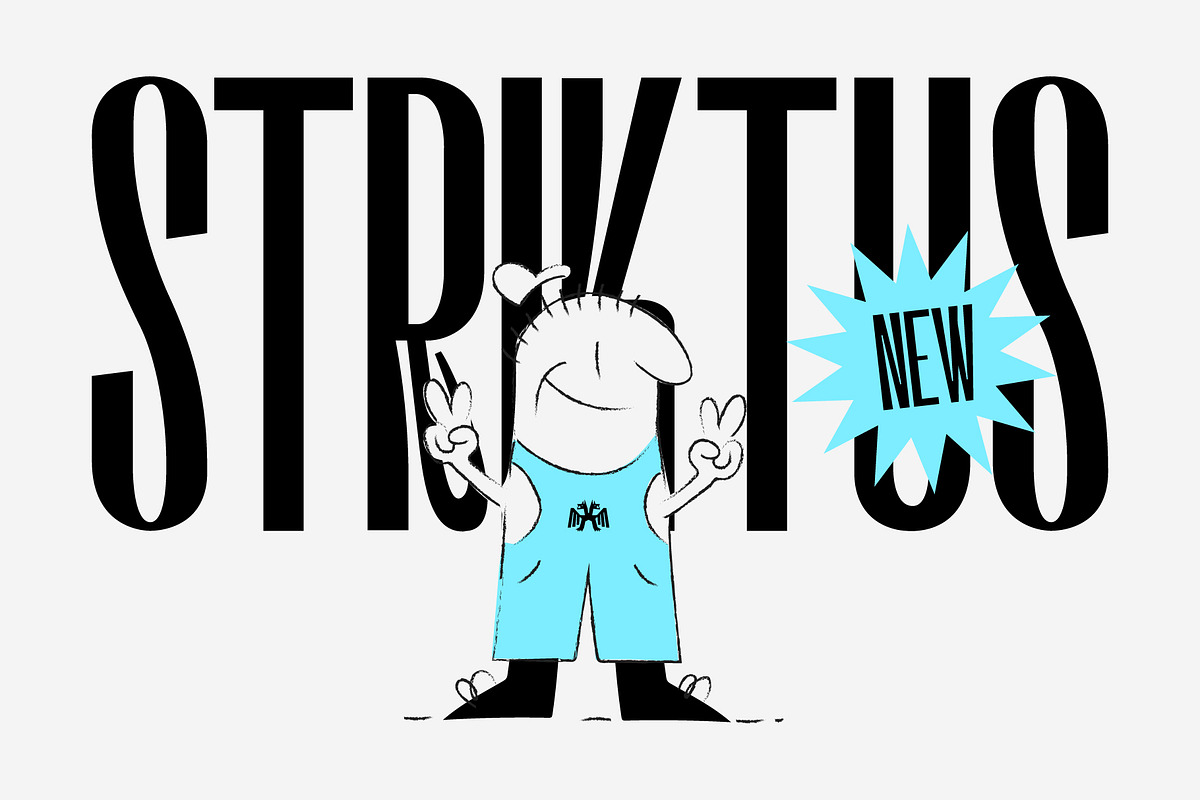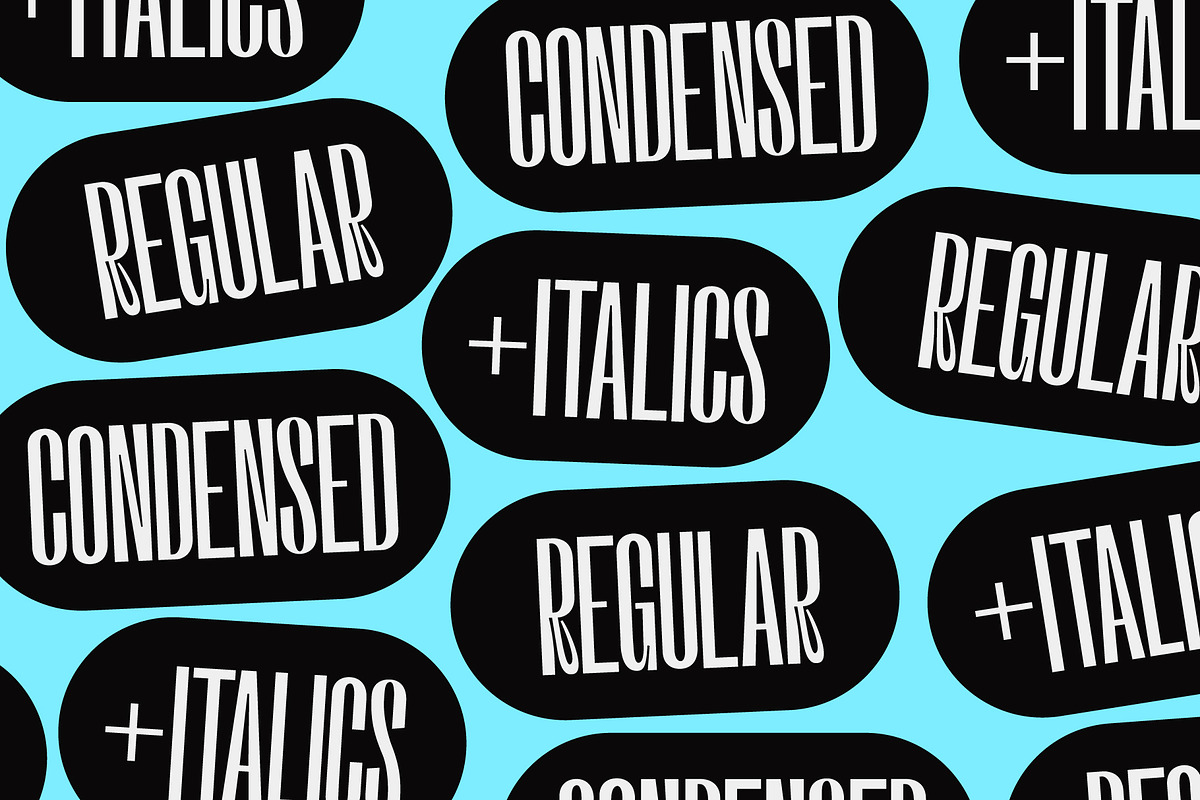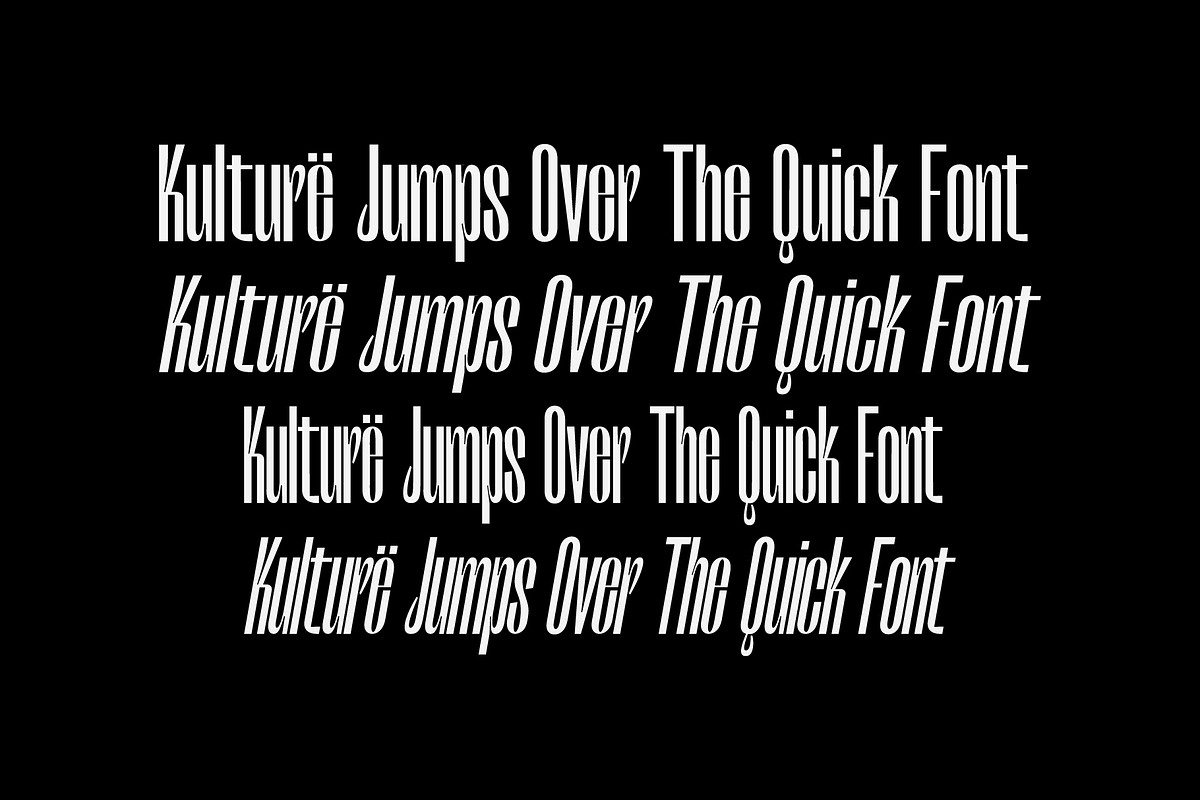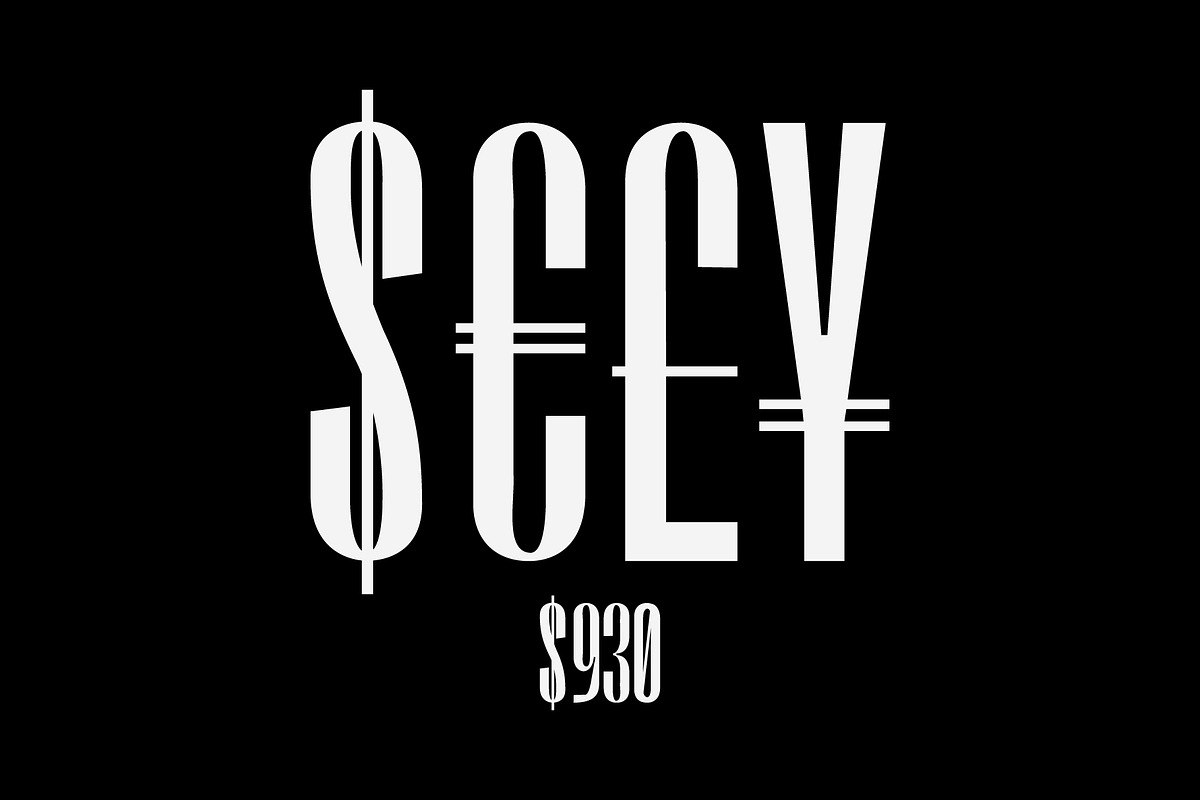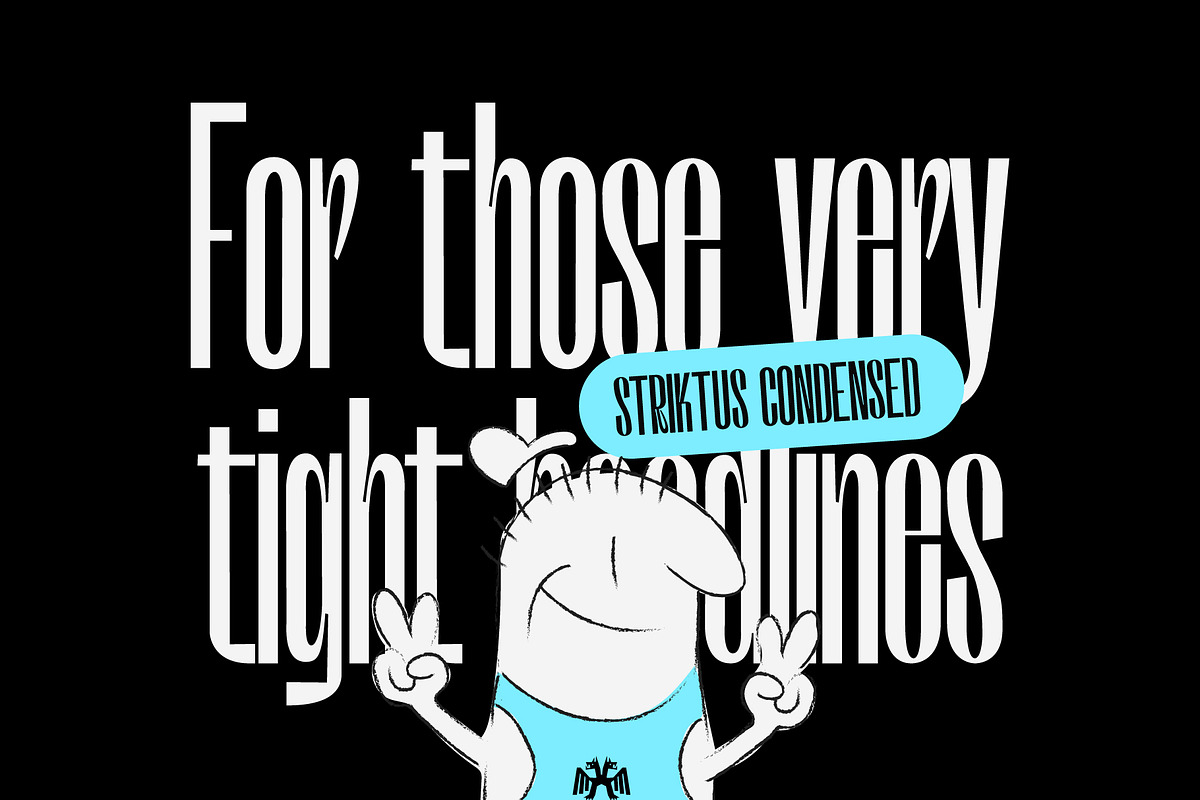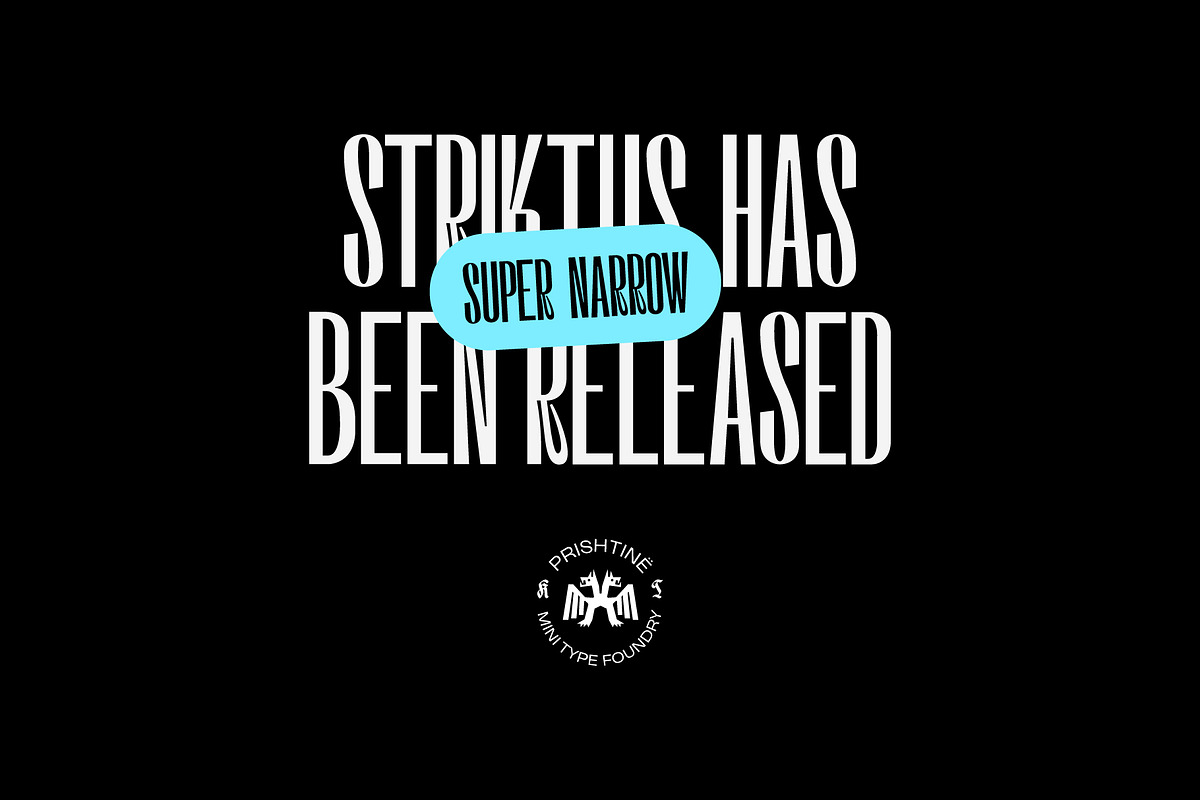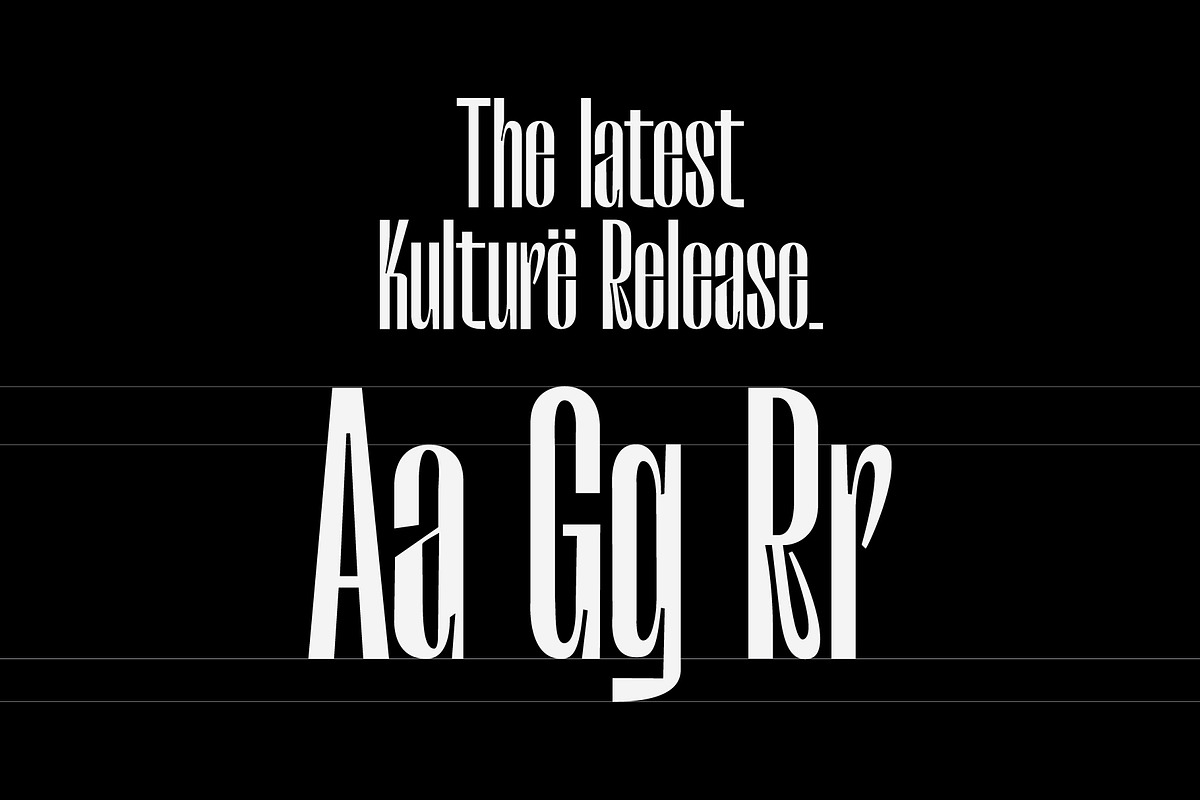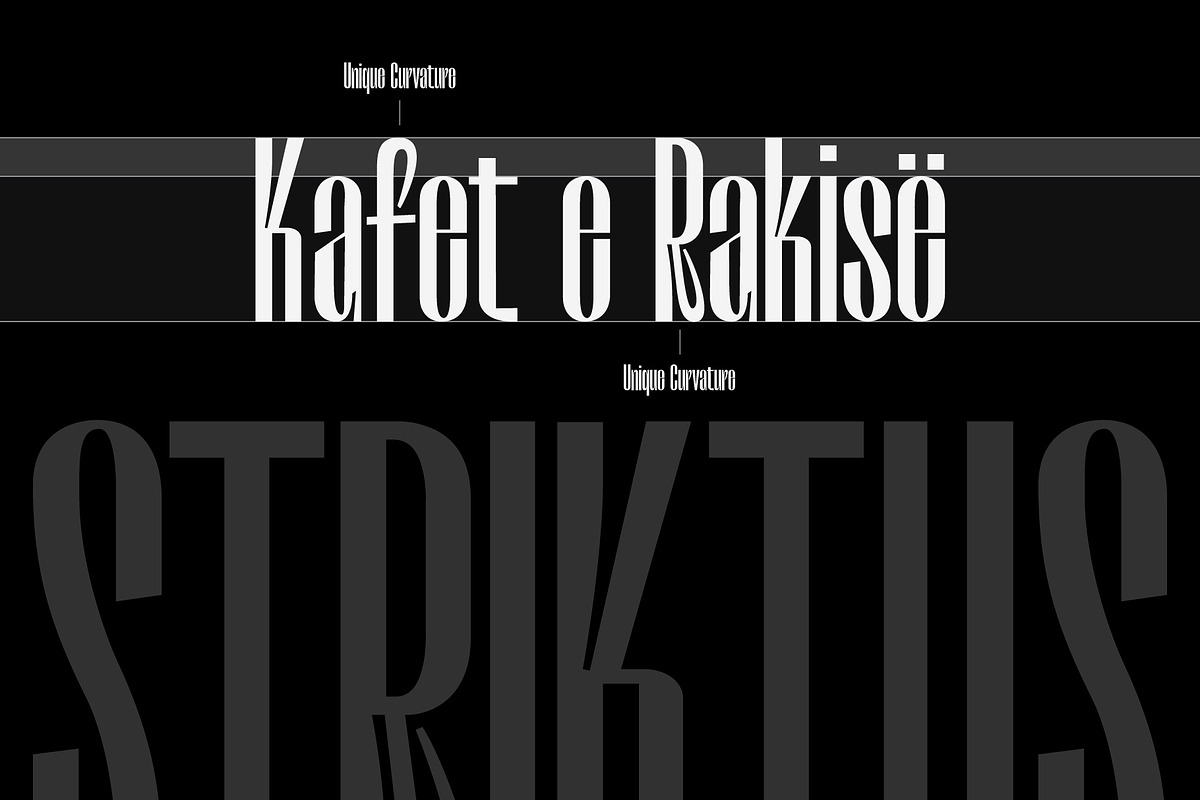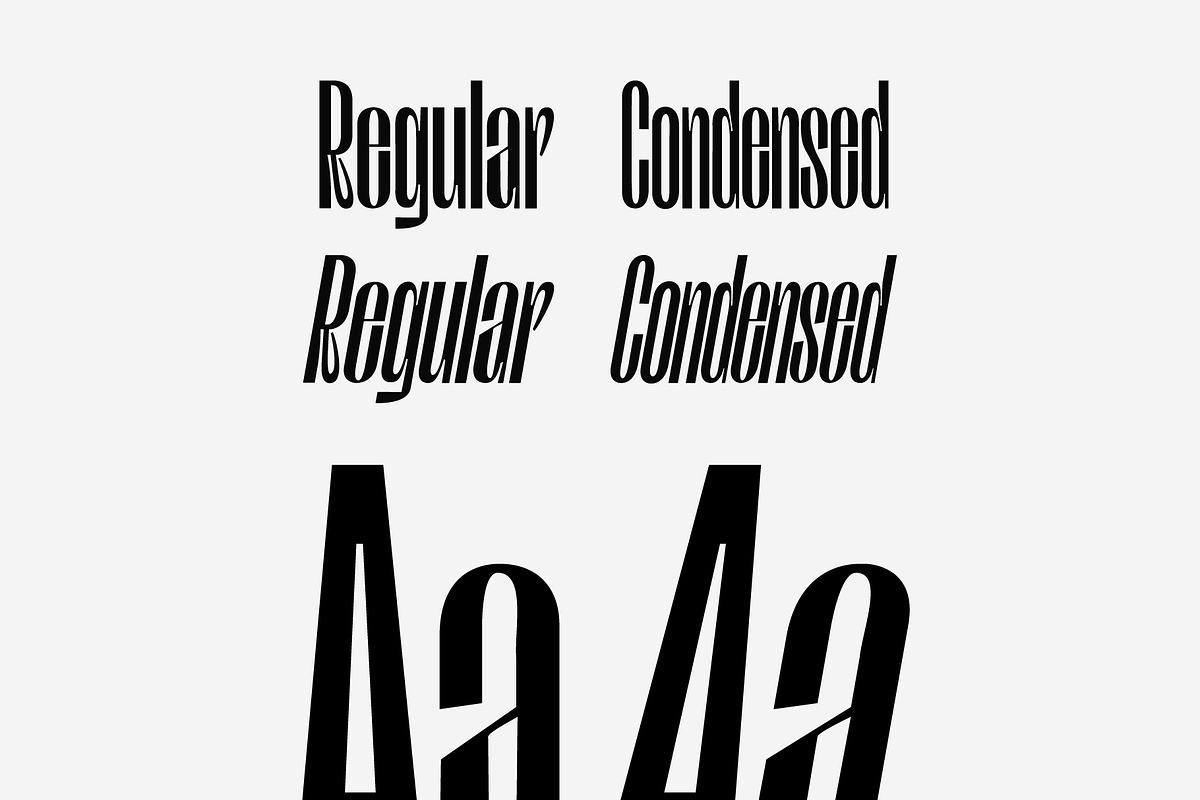
Neue Striktus - Display Type
Hey all! Introducing our latest release, Neue Striktus.
Striktus is a type we've been working on for a long time, initially inspired by the Dadaism movement and recently updated to match the current type era. Mixed with modernism and a vintage feel, it is the long lost brother of Perandory. The type features some super unique curves in certain glyphs, with its dominant condensed feel it makes it a perfect type for headlines and big titles. Although it is considered a display type, feel free to experiment and go wild. It is an experimental type after all, similar to most of our releases.
Currently available in Regular & Condensed + Italics
A little multilingual as per usual.